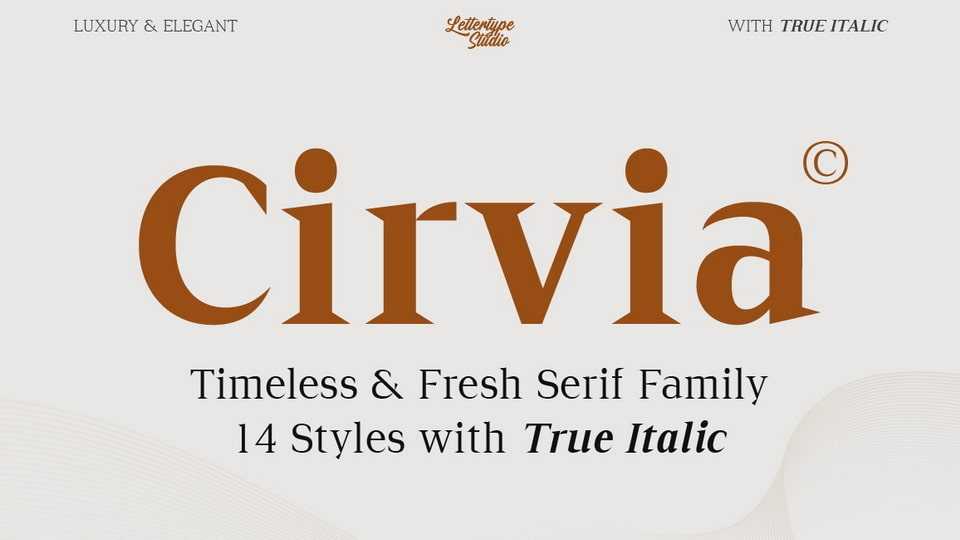
Download Cirvia font, a timeless serif typeface that redefines elegance with modern sophistication. This refined typeface seamlessly blends classic luxury with contemporary freshness,
Designer: Lettertype Studio